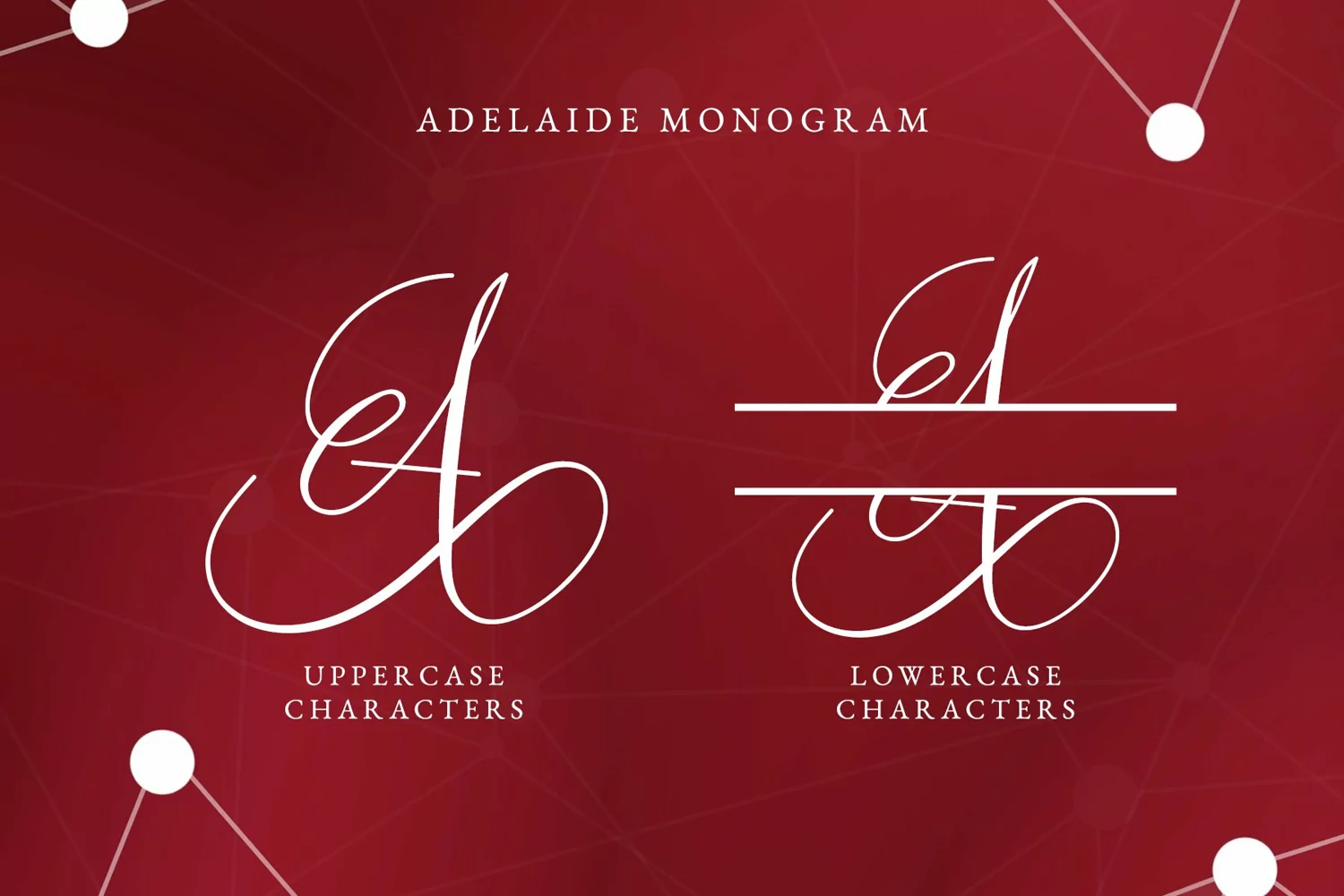
Adelaide is handwritten script font with the touch of sweetness and elegance. It has authentic feel that can be used for wedding invitations, logo, and many other crafts.
Adelaide contains 2 families, the script and monogram.